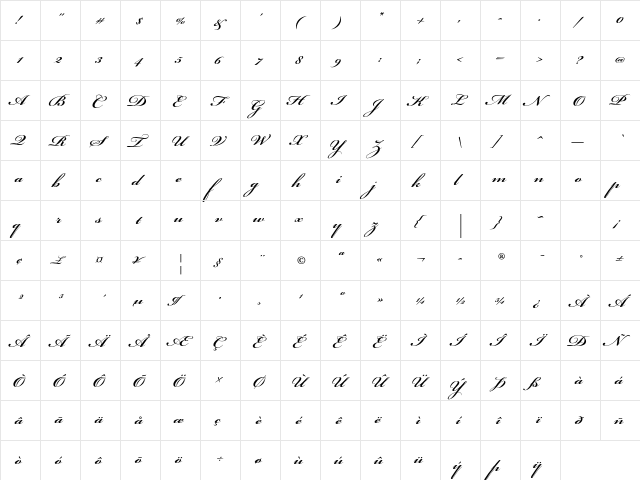
Bickham Script Std Bold Font Preview
Bickham Script Std Bold
Bickham Script Std Bold Font Details
| Designer | Richard Lipton |
Design Context for Bickham Script Std Typeface
Bickham Script Std flows with the natural rhythm of handwritten lettering, making it ideal for designs that call for warmth and personal expression. The heavy weight commands attention and anchors typographic hierarchies.
Font Pairing: Combine Bickham Script Std with a simple geometric sans for maximum contrast — the tension between flowing curves and clean structure is a classic typographic pairing.
Pro Tip: Use Bickham Script Std for short runs of text — names, titles, or taglines. Extended body copy in script faces tires the eye quickly.